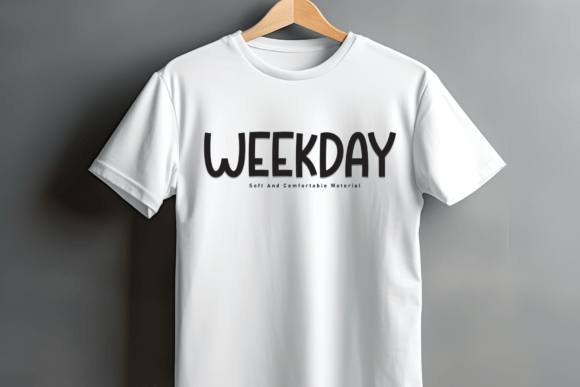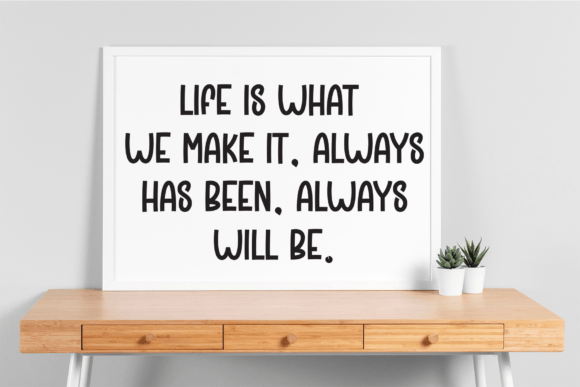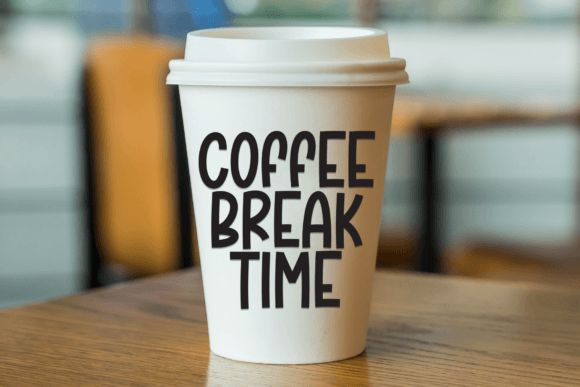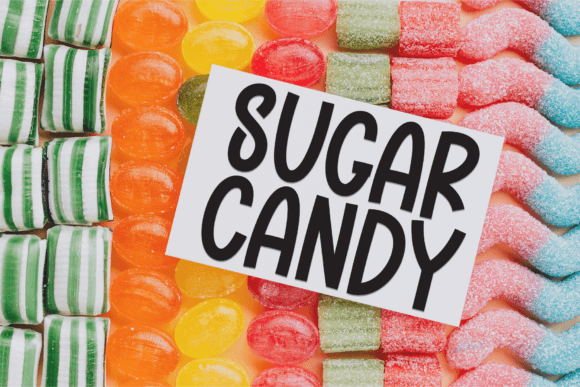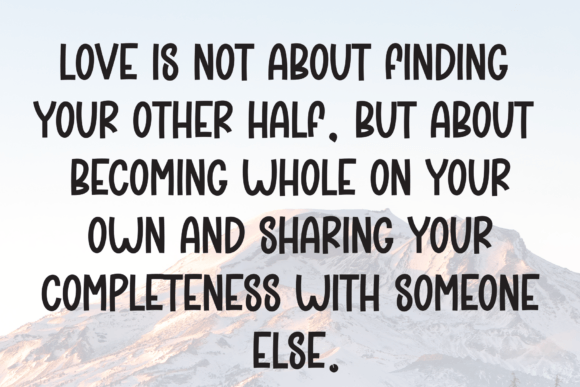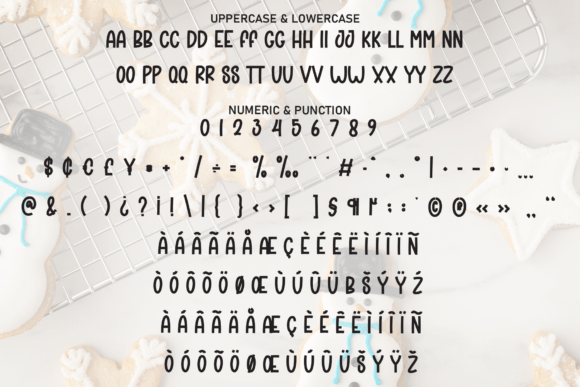
Cookies Snowman Font: The Sweetest Way to Add Whimsy to Your Designs
Are you looking for a font that can add a touch of magic to your designs? Look no further than the Cookies Snowman Font, a whimsical and handcrafted display font that’s sure to enchant your audience. With its sweet and friendly vibe, this delightful typography is perfect for designers and crafters who want to add a dash of joyful innocence and fun to their creations.
A Font that’s as Sweet as it is Friendly
The Cookies Snowman Font is aptly named “Sweet and Friendly”, and for good reason. Its curves are as smooth as sugar, making it perfect for personalizing wedding invitations, greeting cards, and other special occasion designs. The friendly vibe of this font is infectious, inviting one and all to enjoy its playful stroke. Whether you’re designing for a client or creating something for yourself, this font is sure to put a smile on your face.
Perfect for Cherished Moments
We all have those special moments that we want to treasure forever, and the Cookies Snowman Font is the perfect way to make them even more memorable. Whether you’re designing a wedding invitation, a birthday card, or a holiday greeting, this font adds that extra sprinkle of joy that’s sure to make your design stand out. Imagine being able to create beautiful, one-of-a-kind designs that capture the essence of your special moment – with this font, you can do just that.
What Makes Cookies Snowman Font So Special?
So what sets the Cookies Snowman Font apart from other fonts out there? For starters, its whimsical design is sure to capture the hearts of anyone who sees it. The handcrafted nature of this font gives it a unique, personal touch that’s hard to find in other fonts. Plus, its versatility means you can use it for a wide range of design projects, from digital designs to print materials.
Design Possibilities are Endless
The Cookies Snowman Font is perfect for a wide range of design projects, including:
- Greeting cards and holiday designs
- Digital designs, such as social media graphics and blog headers
- Print materials, such as brochures and flyers
Why Choose Cookies Snowman Font?
With so many fonts out there, why choose the Cookies Snowman Font? Here are just a few reasons:
- Unique and whimsical design that’s sure to stand out
- Handcrafted with love and care, giving it a personal touch
- Versatile and easy to use, even for beginners
- Perfect for a wide range of design projects
Get Ready to Fall in Love with Cookies Snowman Font
If you’re looking for a font that can add a touch of whimsy and charm to your designs, look no further than the Cookies Snowman Font. With its sweet and friendly vibe, this delightful typography is sure to capture the hearts of anyone who sees it. So why wait? Download the Cookies Snowman Font today and start creating your own magical designs!
In conclusion, the Cookies Snowman Font is a must-have for any designer or crafter looking to add a touch of whimsy and charm to their designs. With its unique and handcrafted design, this font is sure to stand out from the crowd. Whether you’re designing for a client or creating something for yourself, this font is perfect for cherished moments that require that extra sprinkle of joy. So why wait? Get your hands on the Cookies Snowman Font today and start creating your own enchanting designs!